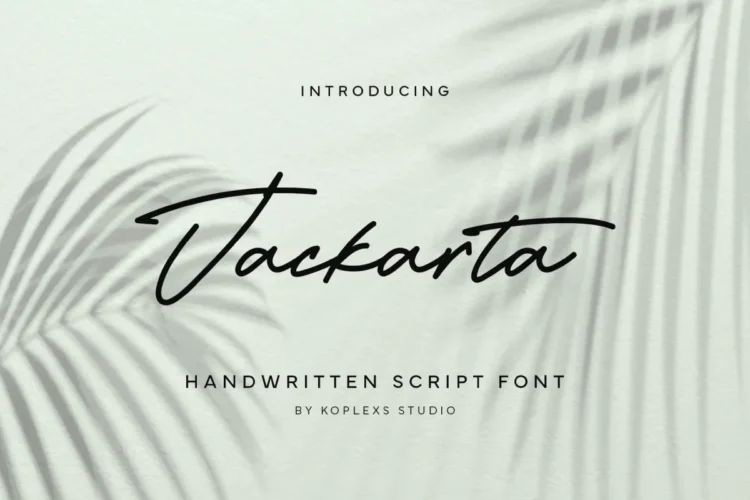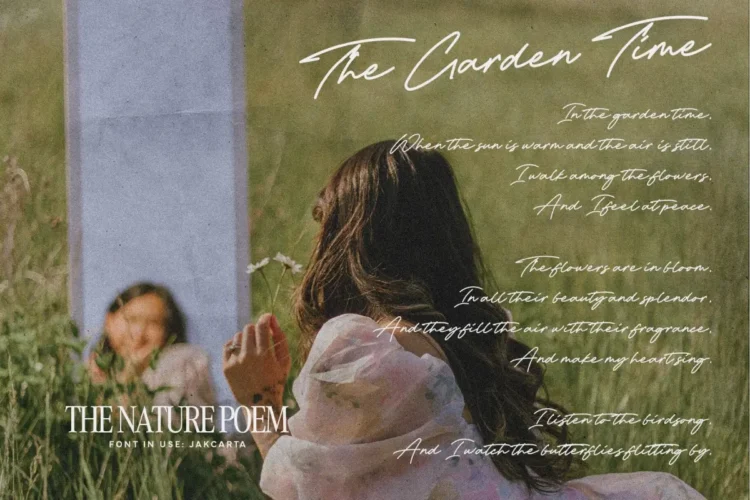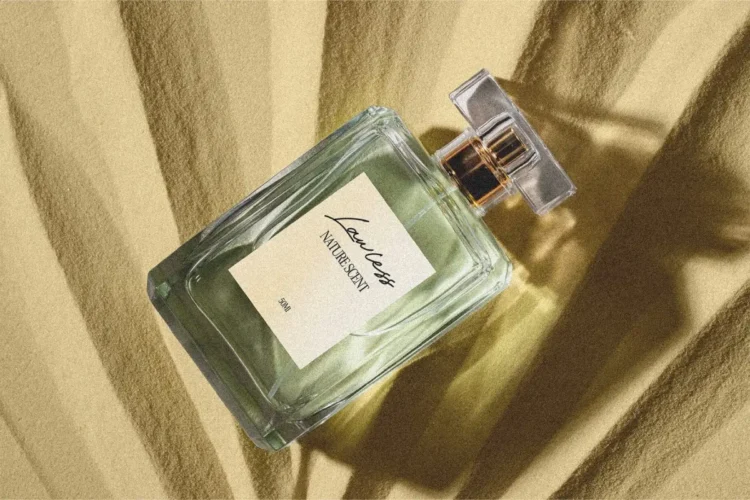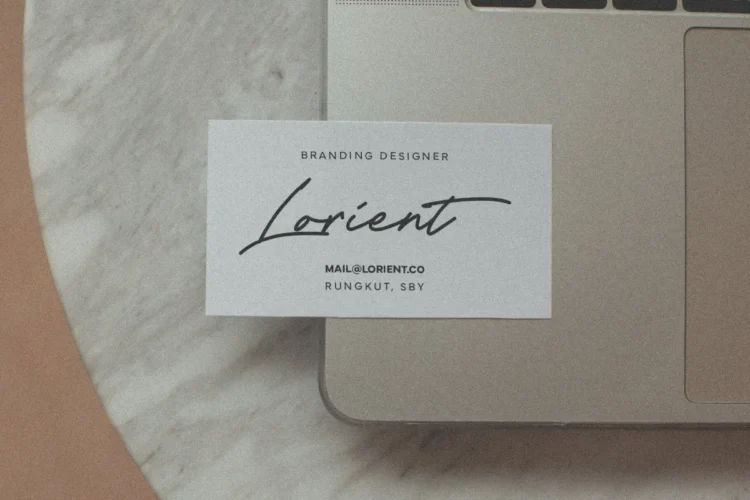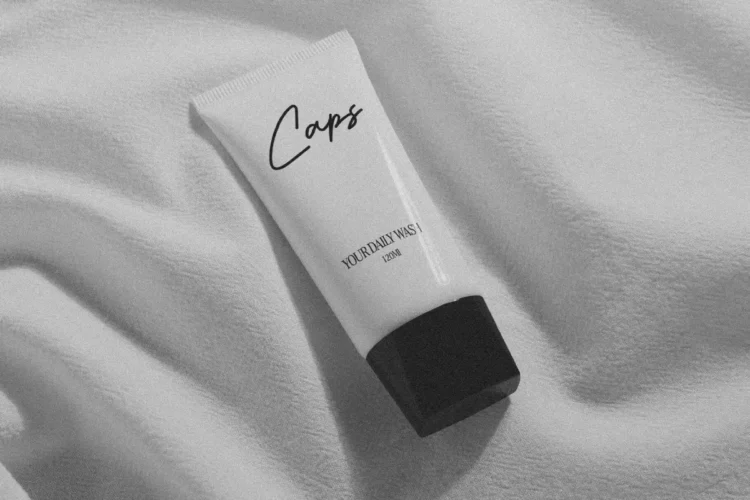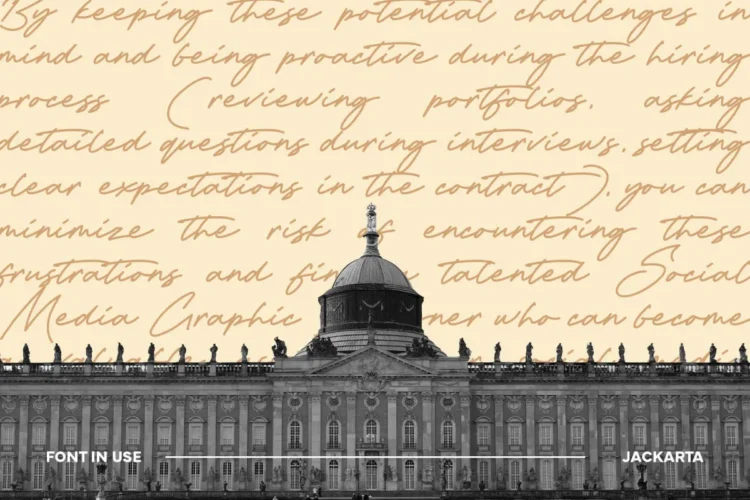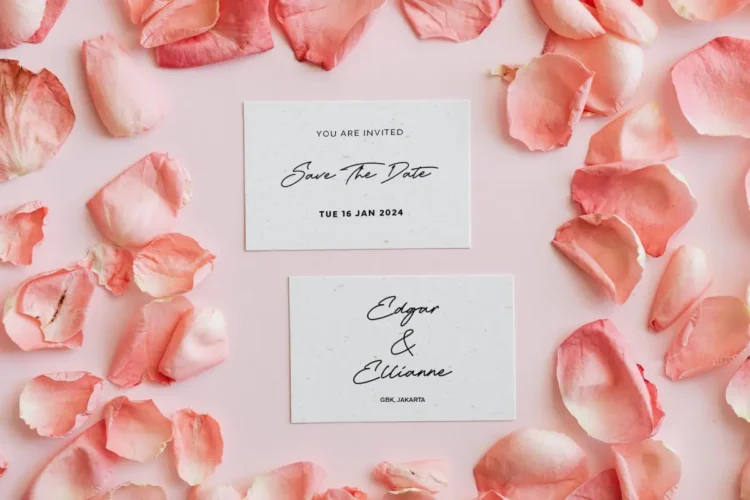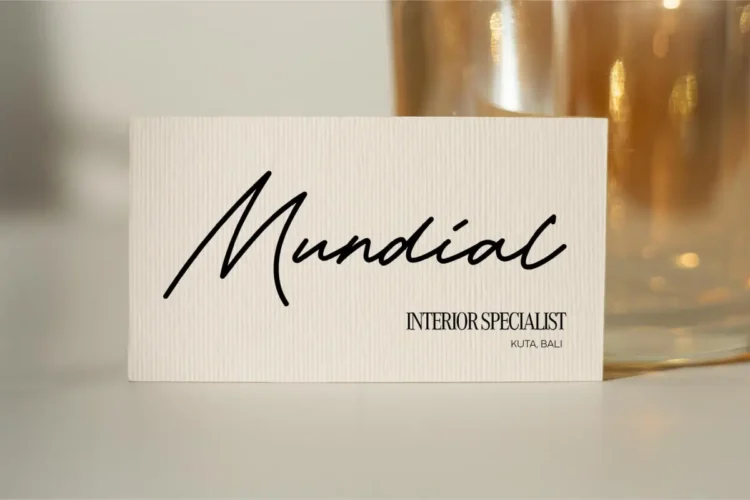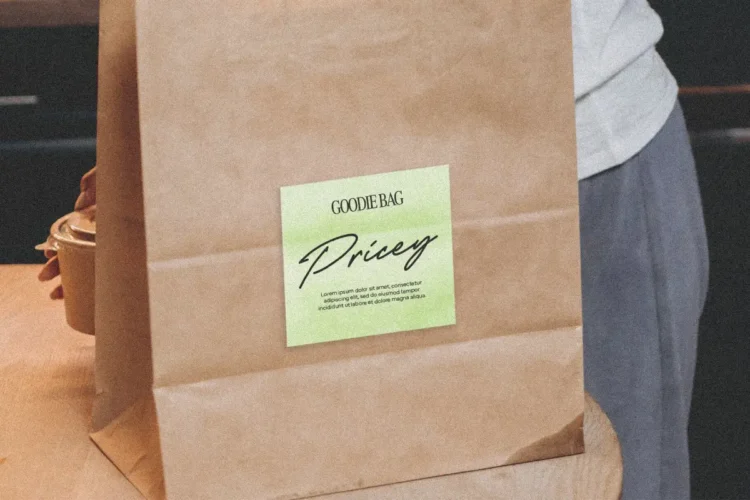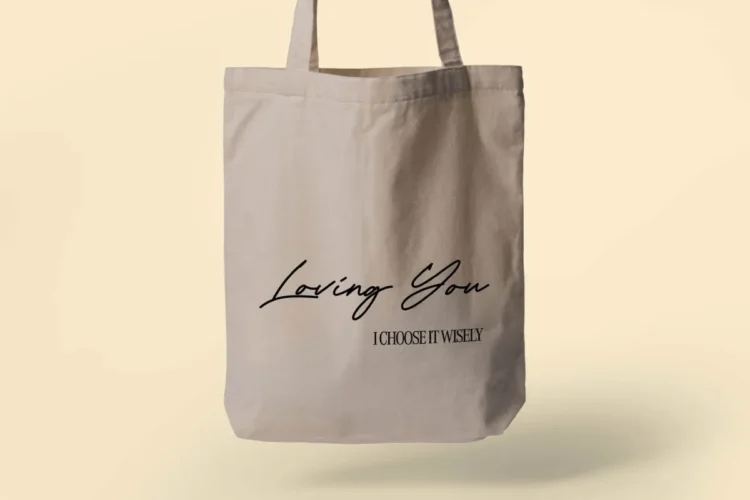
✨ Jackarta Font – Elegant Handwriting Script Font for Branding, Wedding & Luxury Design
Jackarta Font is a stunning handwritten script font that combines the elegance of a Signature font with the charm of modern calligraphy. Crafted with natural strokes and smooth curves, this Handwriting Font is perfect for creating timeless and sophisticated visuals.
Its sleek and cursive font style makes Jackarta ideal for projects that need a personal, luxurious, and romantic touch. Whether you’re working on wedding invitations, branding designs, cosmetic packaging, or a modern logo, this aesthetic font adds depth, warmth, and exclusivity to every project.
Jackarta Font blends effortlessly into various design fields from minimalist branding to expressive art direction delivering both elegance and versatility.
Jackarta Font is versatile and works beautifully for :
- ✨ Wedding Invitations & Stationery
- 💄 Cosmetic and Beauty Branding
- 🖋️ Logo & Signature Design
- 📸 Photography Watermarks
- 🌸 Social Media Posts & Quotes
- 👜 Fashion & Lifestyle Branding
- 🖼️ Product Packaging and Labels